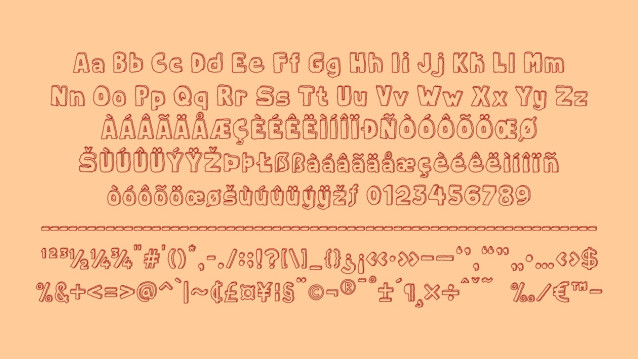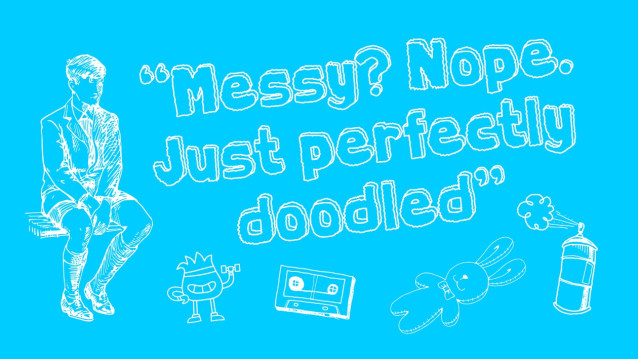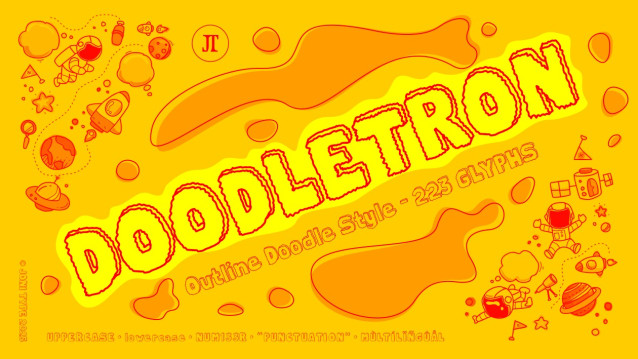
Doodletron Display Font
Doodletron Display Font is a playful, hand-drawn typeface that brings out the carefree energy of doodles on a notebook page. With its chunky outlines and sketchy details, it adds a quirky, lighthearted vibe to any design. Perfect for posters, kids’ projects, comic-style graphics, branding with personality, or anything that needs a fun and casual touch.
Featuring uppercase, lowercase, numbers, punctuation, and accented characters, Doodletron is versatile enough to support multiple languages while keeping its doodle-inspired charm intact. It’s bold, funky, and guaranteed to make your text stand out with a handmade, artistic twist!